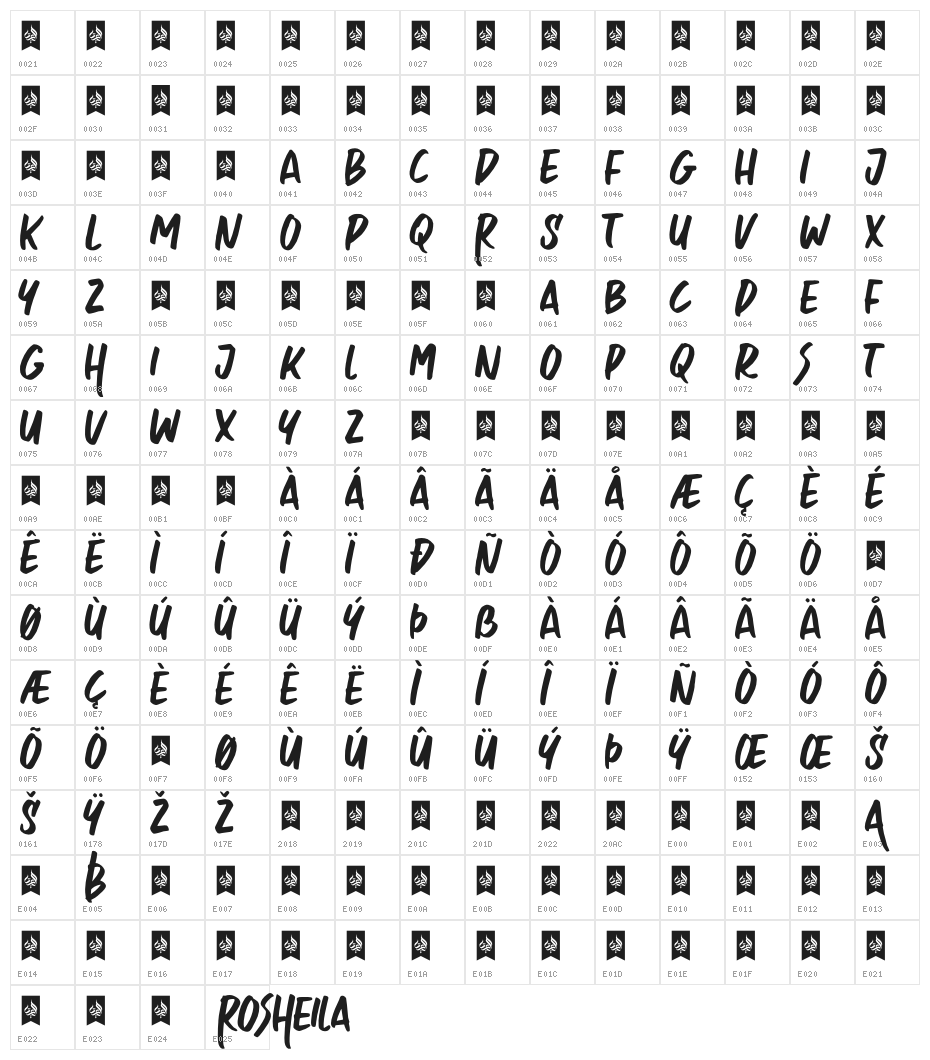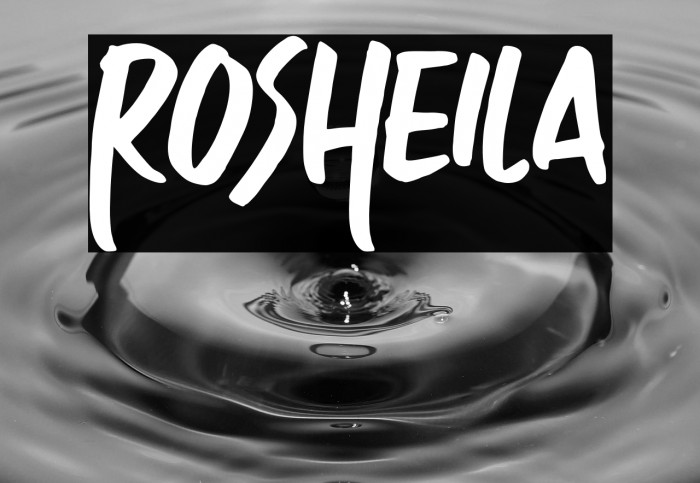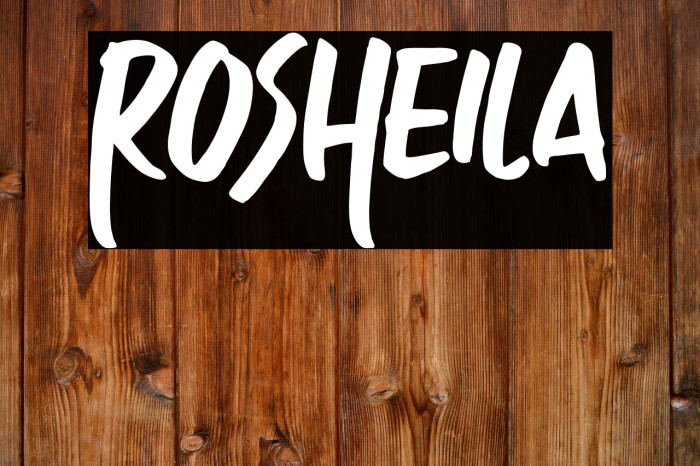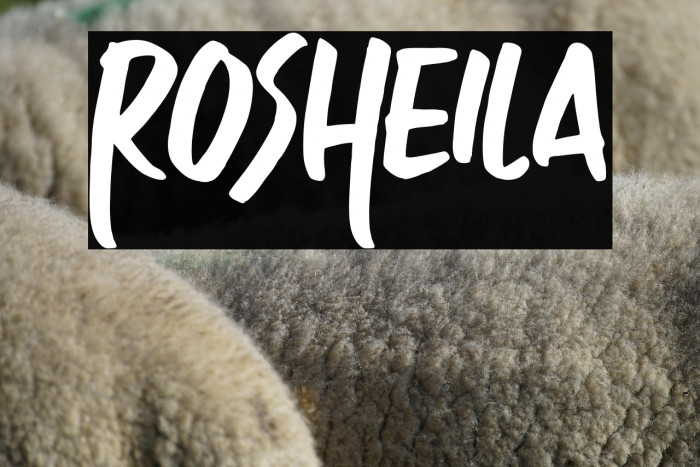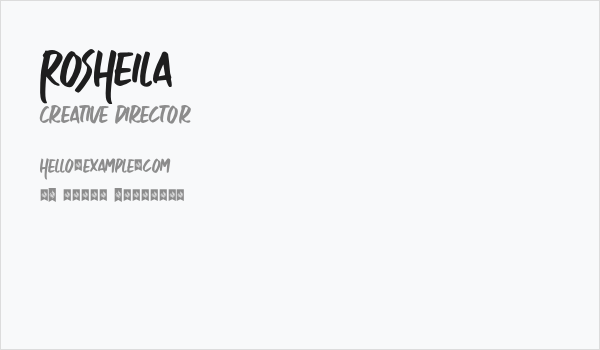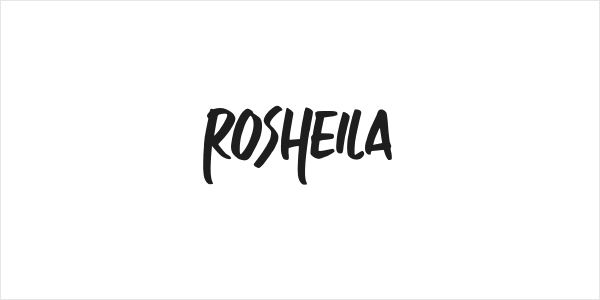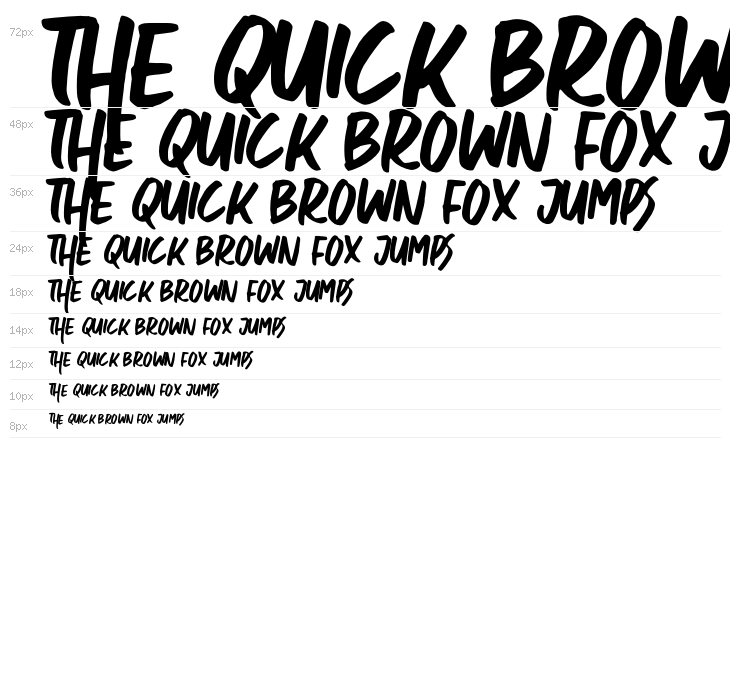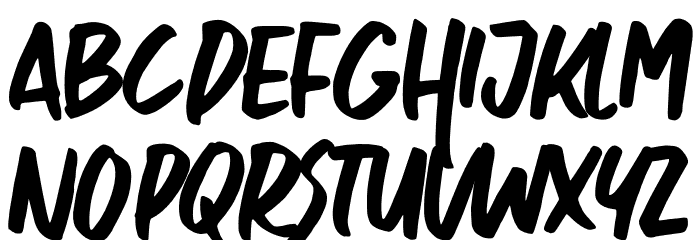
Rosheila Font
Rosheila Description
This font exhibits a bold and dynamic handwritten style, characterized by its thick strokes and energetic flow. The uppercase letters are prominent and slightly slanted, giving a sense of movement and spontaneity. The lowercase letters maintain a consistent style, complementing the uppercase with their fluid and connected forms. The overall appearance is casual yet impactful, making it suitable for designs that require a personal touch. The font's boldness ensures visibility and readability, even from a distance, while its handwritten nature adds a touch of authenticity and warmth.
| Proposed Projects | Ideal for branding, social media graphics, posters, and invitations where a personal and impactful style is desired. |